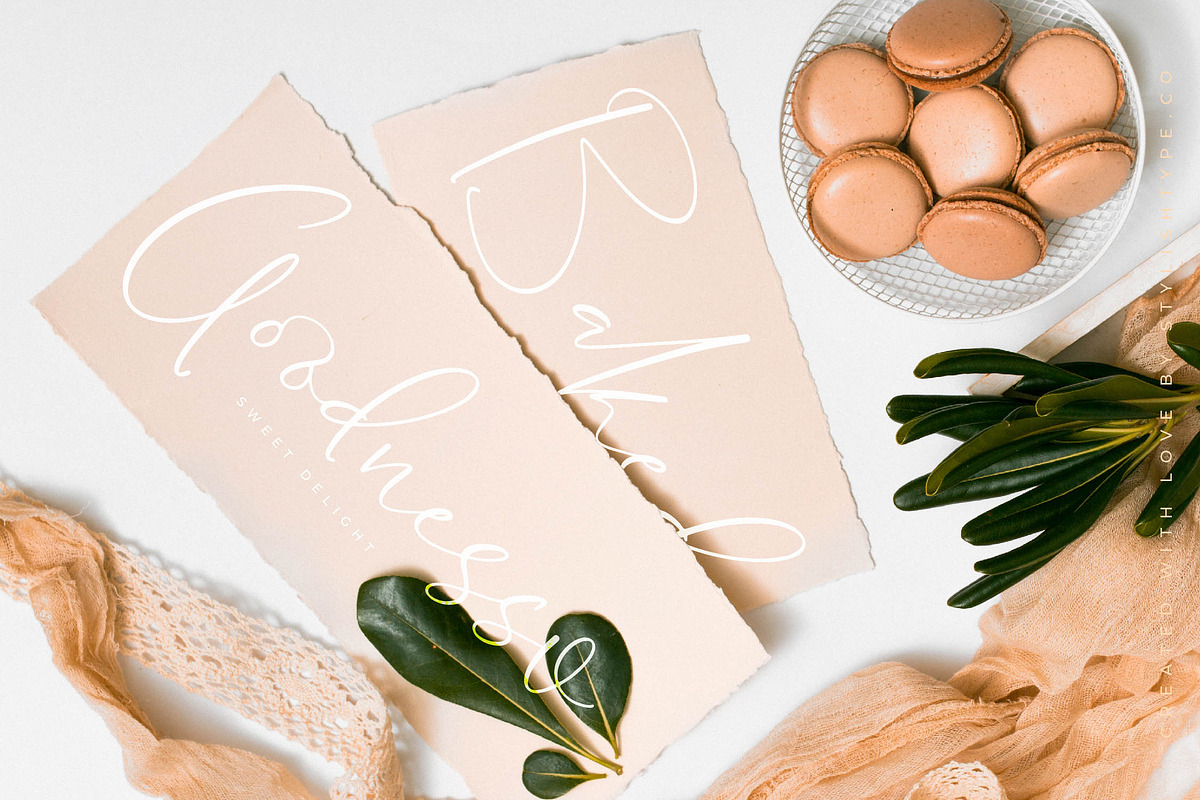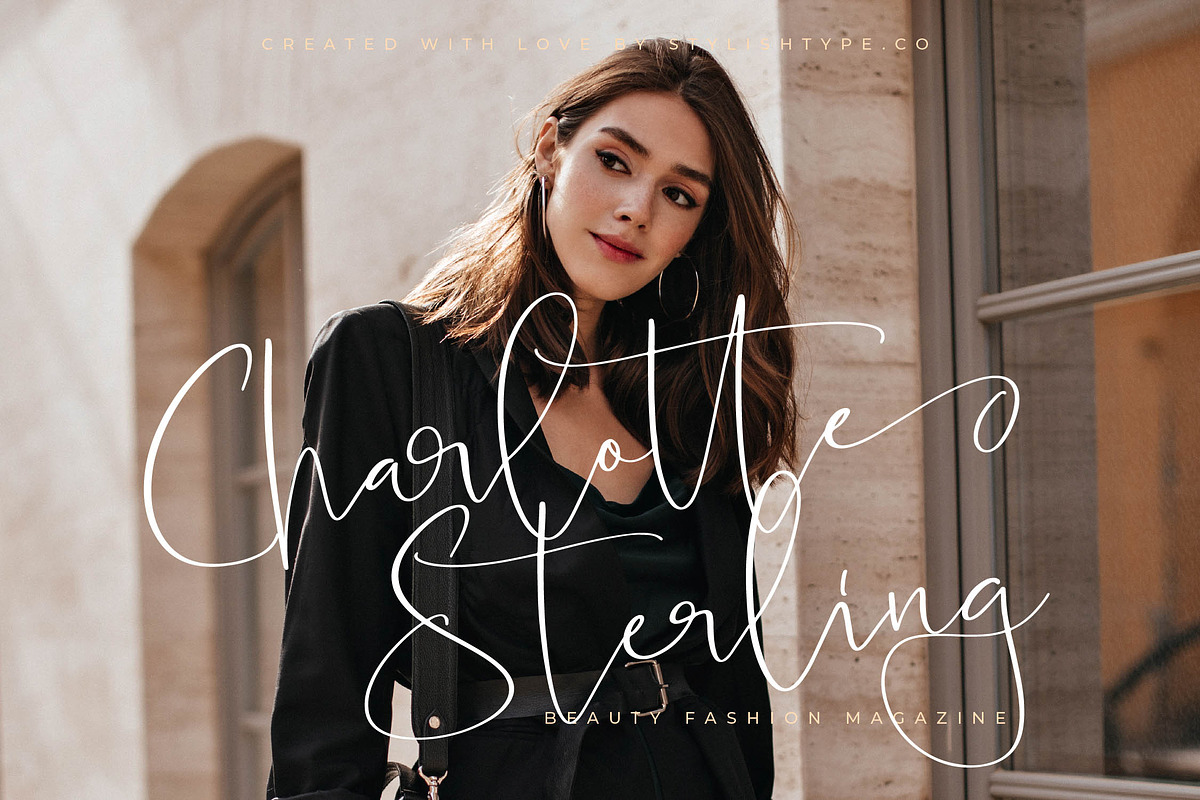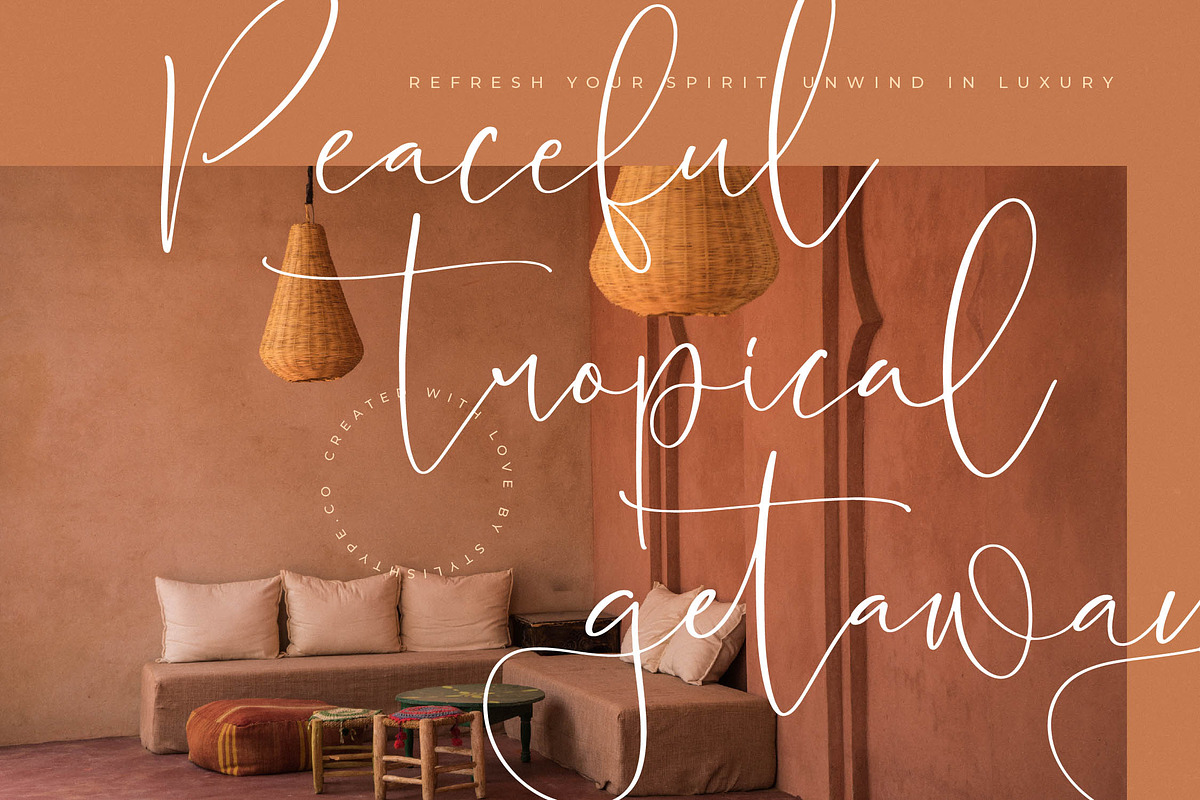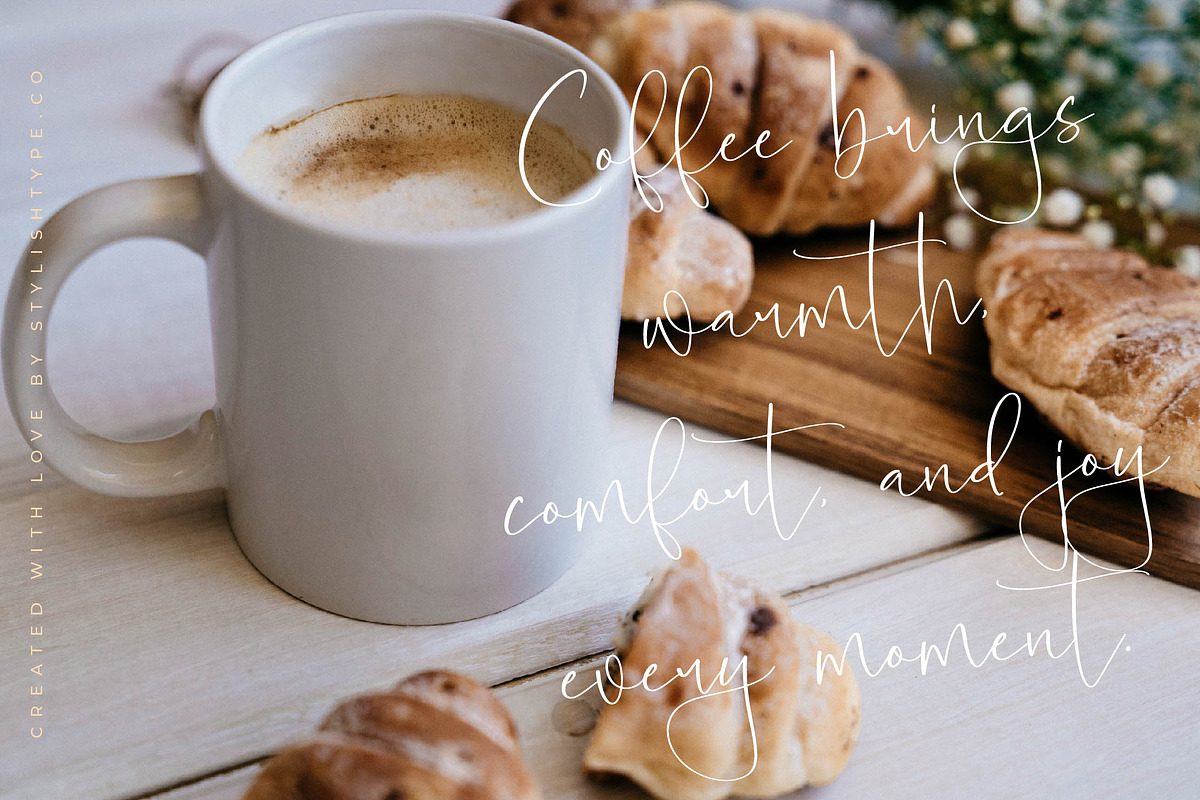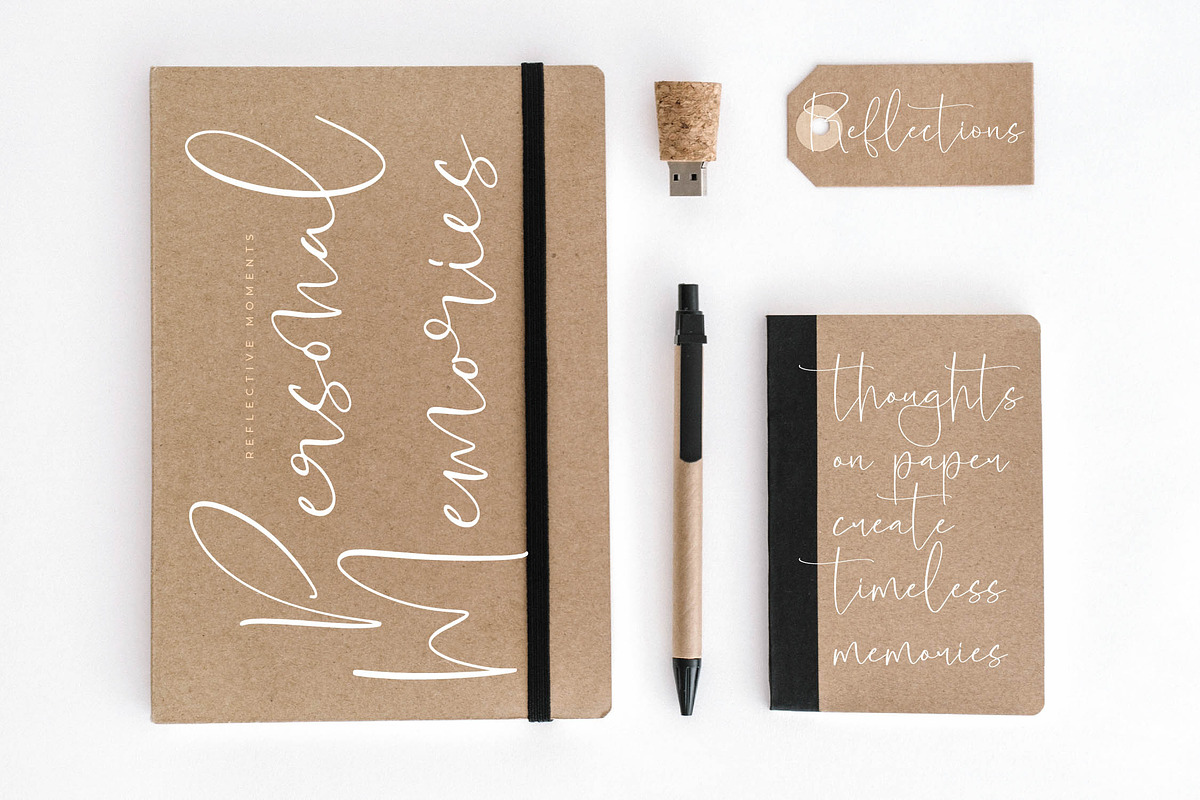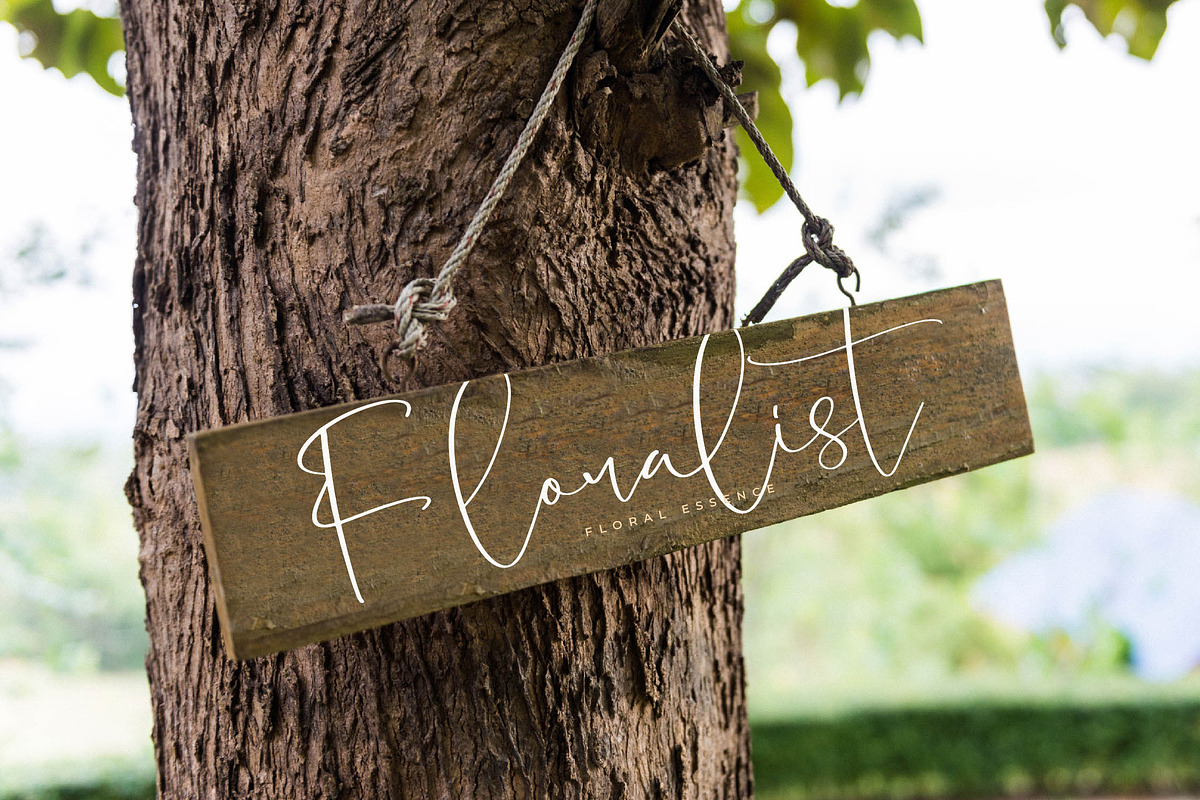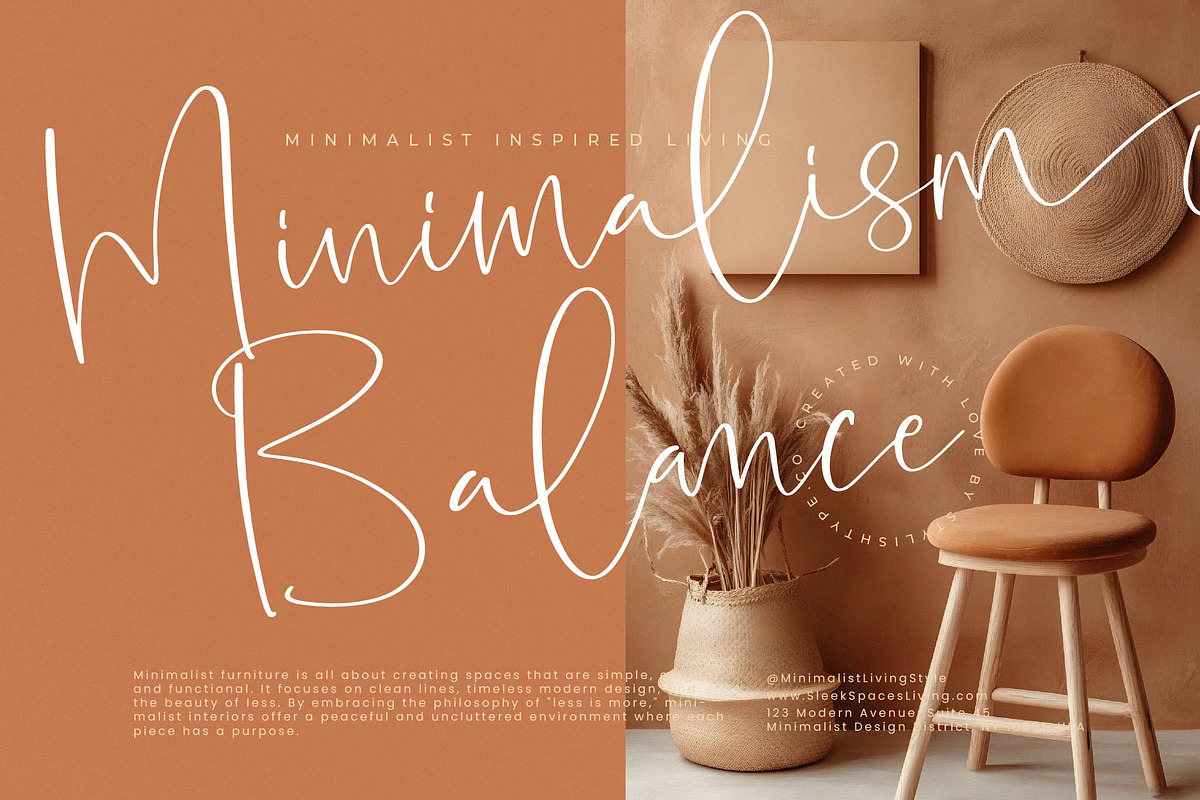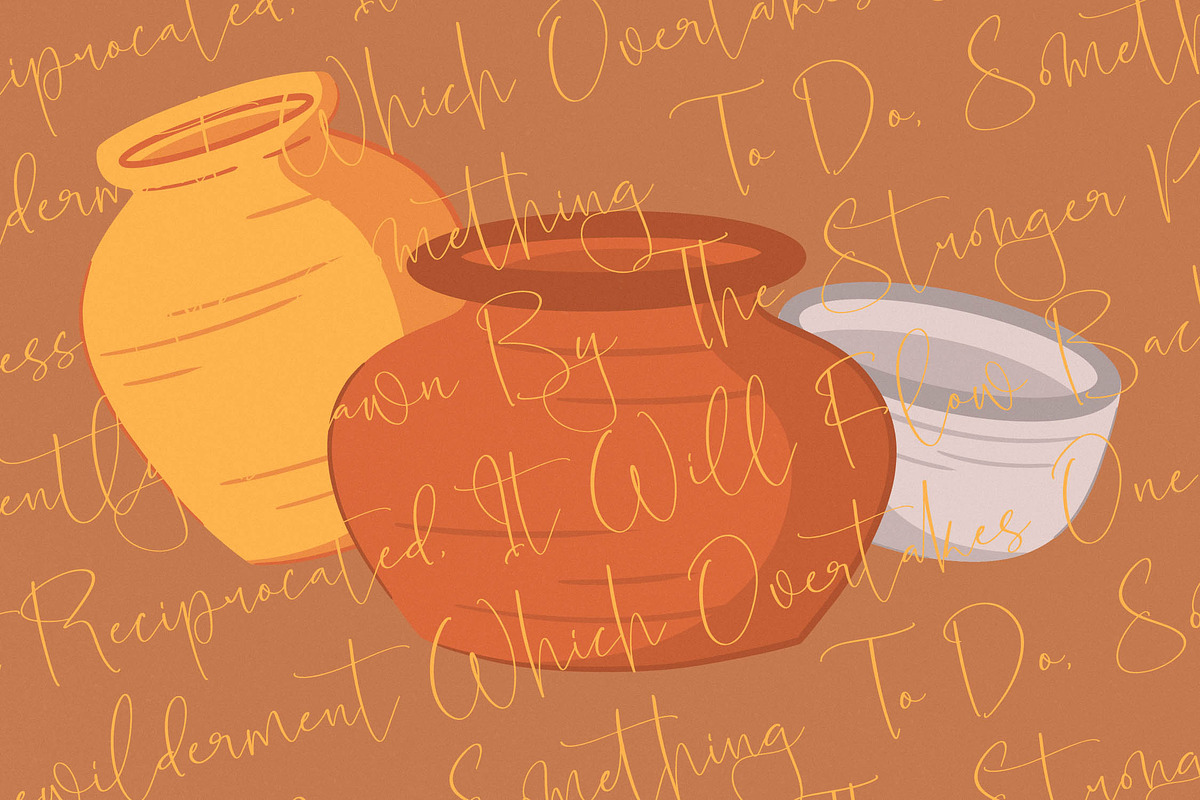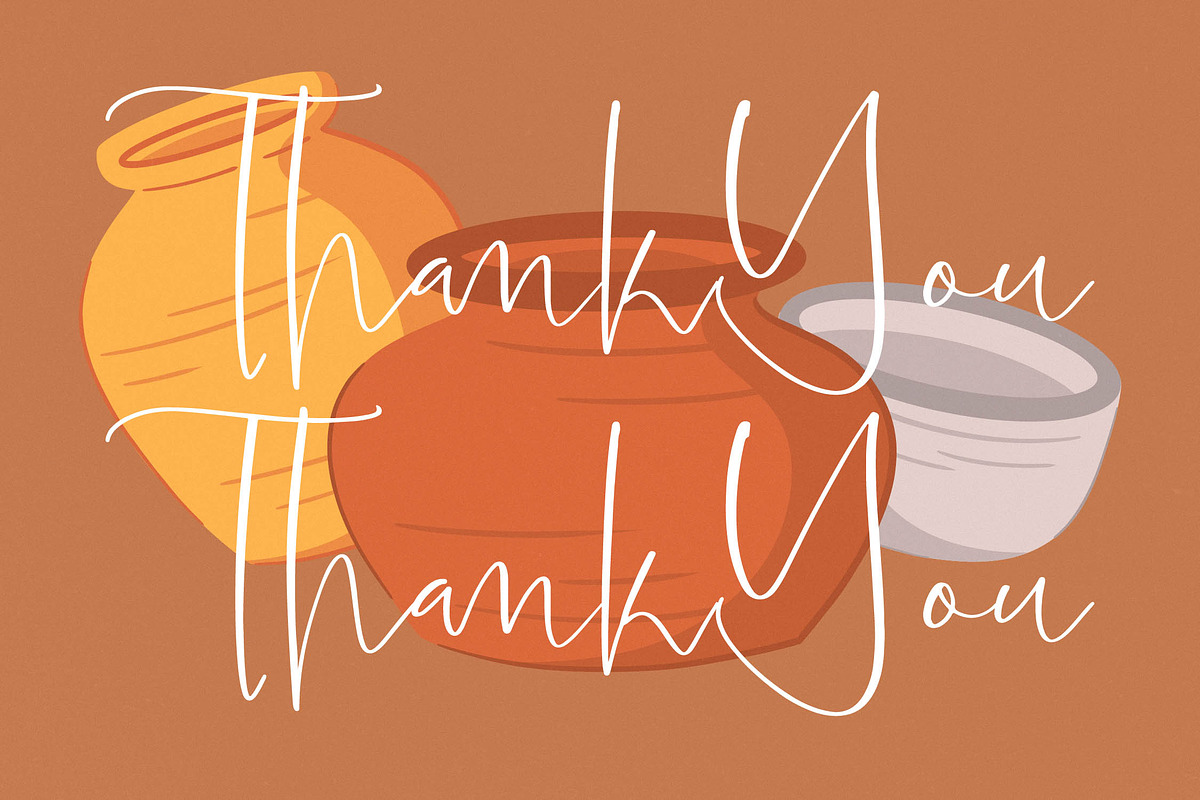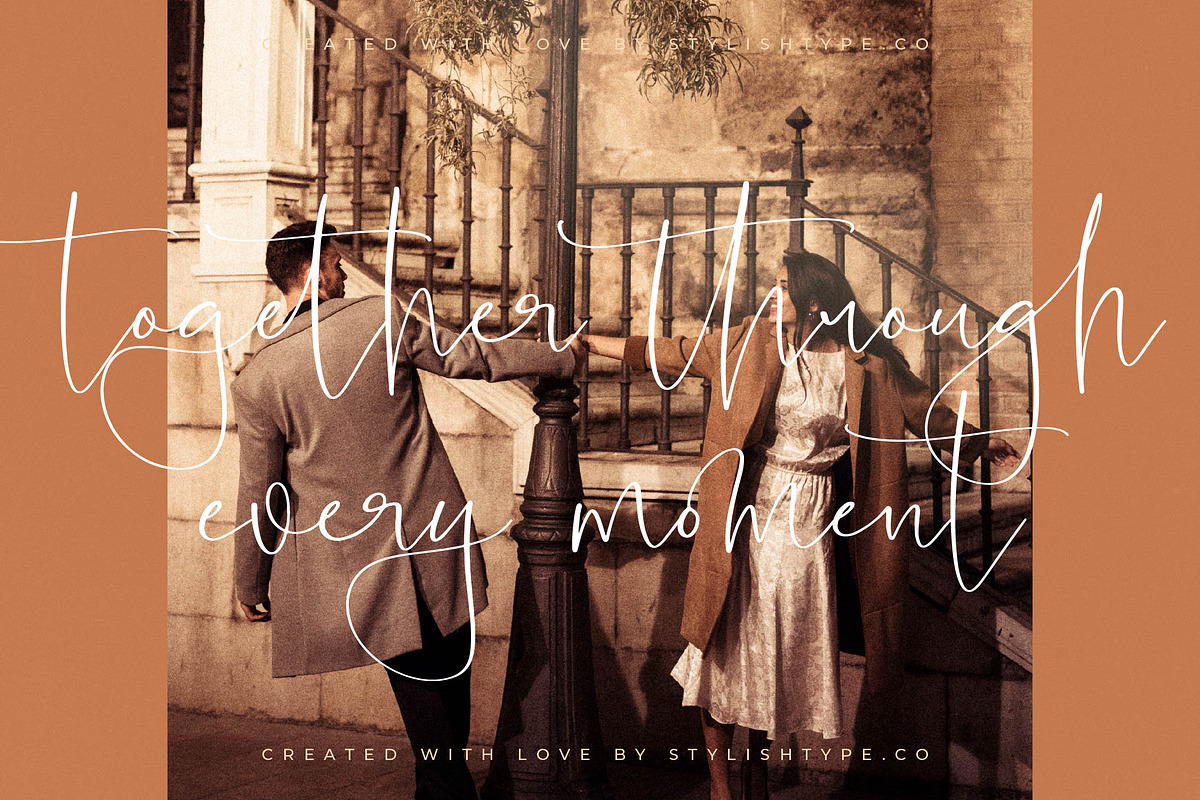
Blooming Stockholm Modern Script
Blooming Stockholm - Modern Handwritten Script , from Stylishtype.Co , Suitable for any projects such as: logos, branding projects, homeware designs, product packaging, mugs, quotes, posters, shopping bags, t-shirts, book covers, name card, invitation cards, greeting cards, label, photography, watermark, special events, and all your other luxury and beautiful projects that need a Luxury Script taste.
- 99 Ligature 86 Alternates & Swashes